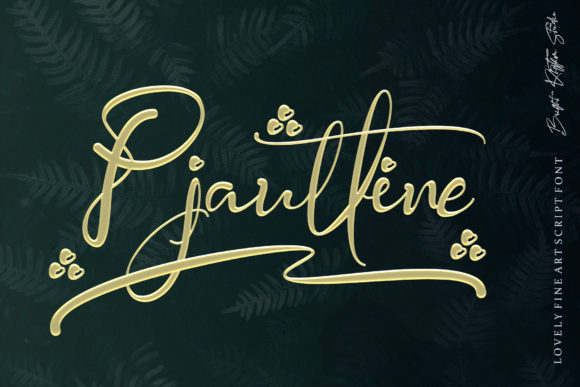
Step into the world of Pjaulline Script, a font that will bring enchantment to your digital creations. This font is a visual symphony, a harmonious blend of elegance and charm. Its flowing curves, reminiscent of a handwritten letter, create an aura of warmth and intimacy.
With Pjaulline Script, your words will dance on the screen, captivating your audience with its whimsical beauty. Whether you're crafting heartfelt wedding invitations, designing thank-you cards that radiate gratitude, or creating greetings that bring joy to the hearts of your loved ones, Pjaulline Script will elevate your designs to new heights of sophistication.
**Immerse yourself in the boundless creativity of Pjaulline Script:**
- Ignite your passion for storytelling with this font, perfect for weaving captivating tales and enchanting narratives.
- Transform your social media posts into visual masterpieces, making your words shine with personality and flair.
- Design logos that exude elegance and leave a lasting impression on your customers.
- Birth visually stunning branding materials that reflect the essence of your brand with grace and charm.
Pjaulline Script is not just a font; it's an invitation to embark on a creative journey, where your imagination knows no bounds. Whether you're a seasoned designer or just starting, this font will empower you to create designs that captivate and inspire. Its versatility knows no limits, making it the perfect choice for a wide range of projects.